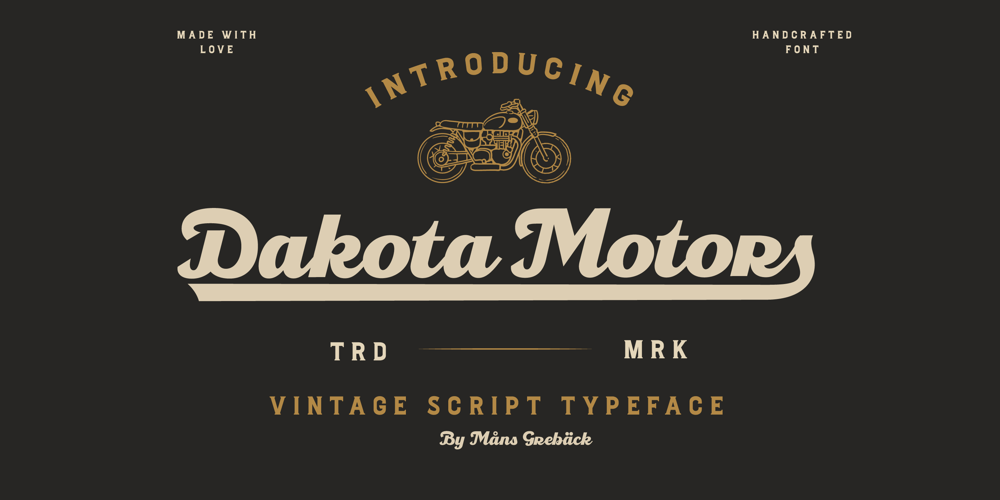
Dakota Motors Font Family was designed by Måns Grebäck and published by Mans Greback. Dakota Motors contains 4 styles and family package options. Dakota Motors is a bold script font. This retro font is expressive, and is constructed of sharp strokes and heavy letterforms. Use it for a cool logotype or headline to give your work that genuine look. Use underscore _ to make a swash. Example: Puch_Use multiple underscores to make longer swashes. Example: RaceCar_____(Download required.)The Dakota Motors family consists of four high-quality fonts:Regular, Italic, Bold and Bold ItalicThe font is built with advanced OpenType functionality and has a guaranteed top-notch quality, containing stylistic and contextual alternates, ligatures and more features; all to give you full control and customizability. It has extensive lingual support, covering all Latin-based languages, from Northern Europe to South Africa, from America to South-East Asia. It contains all characters and symbols you’ll ever need, including all punctuation and numbers.